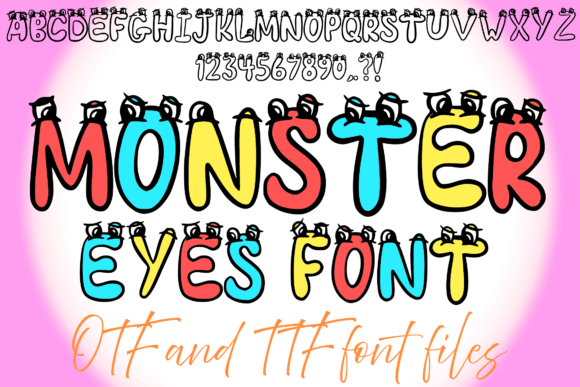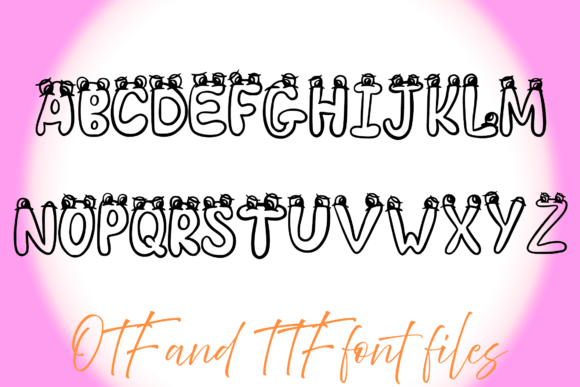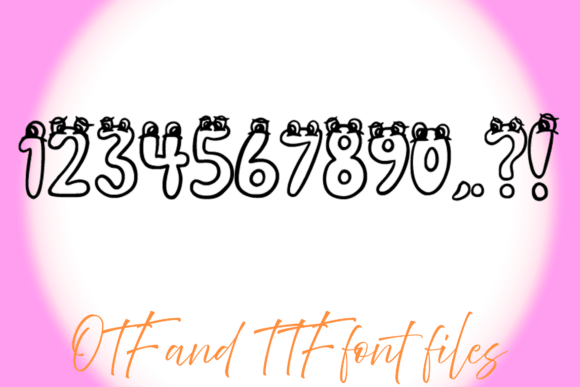
Monster Eyes Font
About the Monster Eyes Font
Add a touch of class to your work with the Monster Eyes Font, a truly exceptional typeface. Monster Eyes is an incredibly unique display font. Masterfully designed to become a true favorite, this font has the potential to bring each of your creative ideas to the highest level!
Monster Eyes excels as a display font for headlines, posters, and branding projects requiring a bold and attention-grabbing presence. Its unique design makes it ideal for eye-catching logos, short impactful statements, or striking titles. Avoid using it for body text or long paragraphs; its strong character isn’t suited for extended readability.
The font’s personality is undeniably bold and slightly rebellious. It projects confidence and a modern edge. Pairing it with a clean sans-serif like Helvetica Neue for body copy provides a strong contrast and balances its assertive nature. Alternatively, a more delicate script font could add a touch of unexpected sophistication.
For a softer approach, consider pairing Monster Eyes with a geometric sans-serif for a modern, yet controlled aesthetic. This combination maintains a strong visual impact while preventing visual overload.
Monster Eyes Font Usage Examples
Monster Eyes Font Example